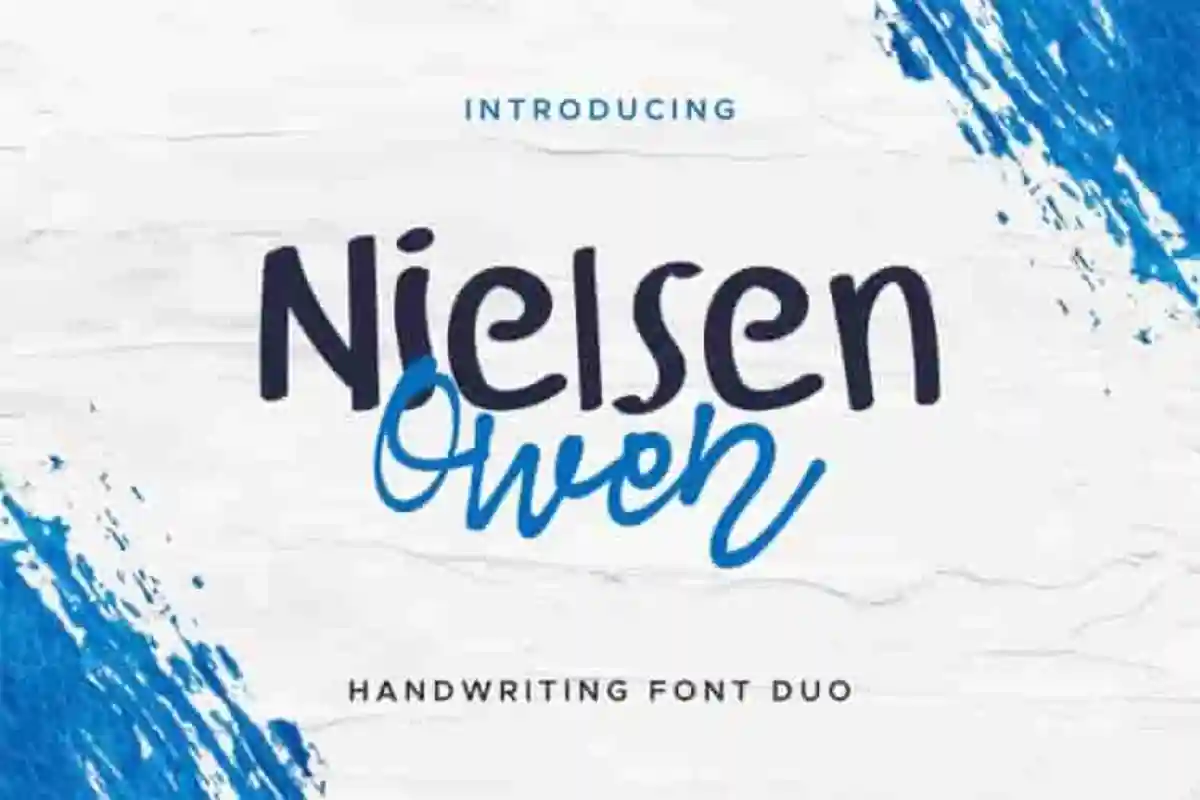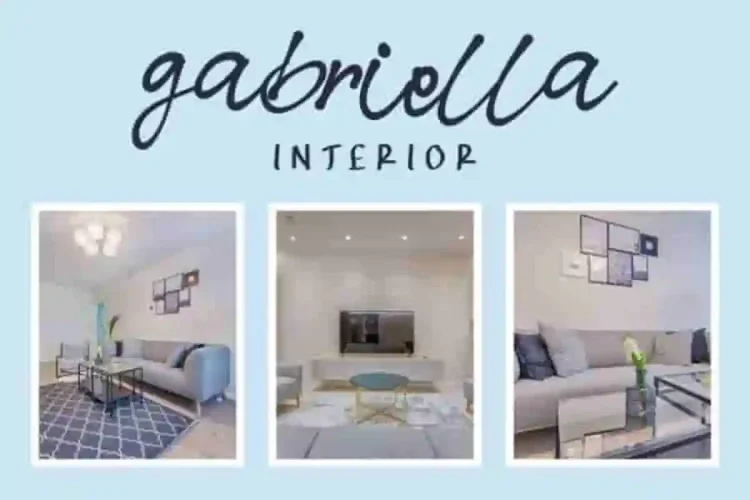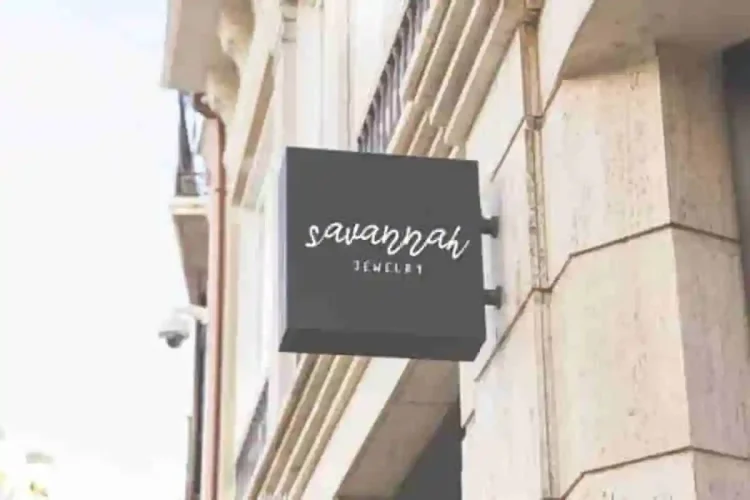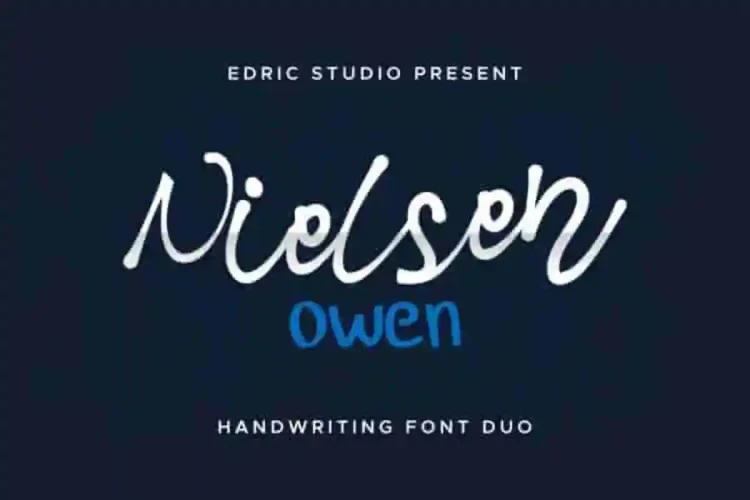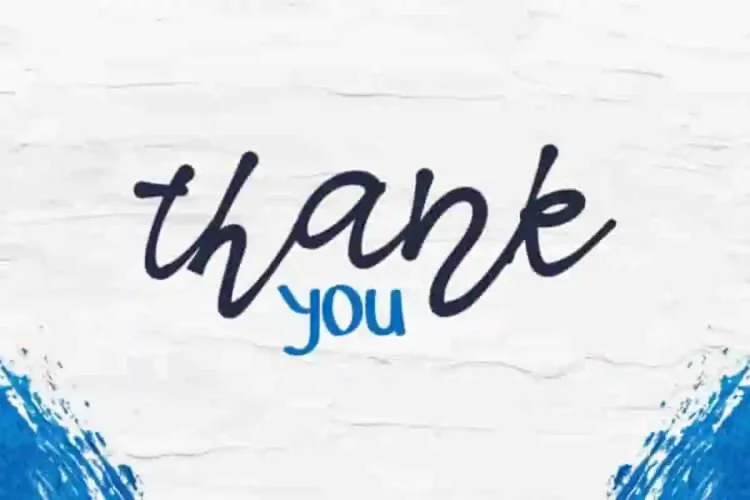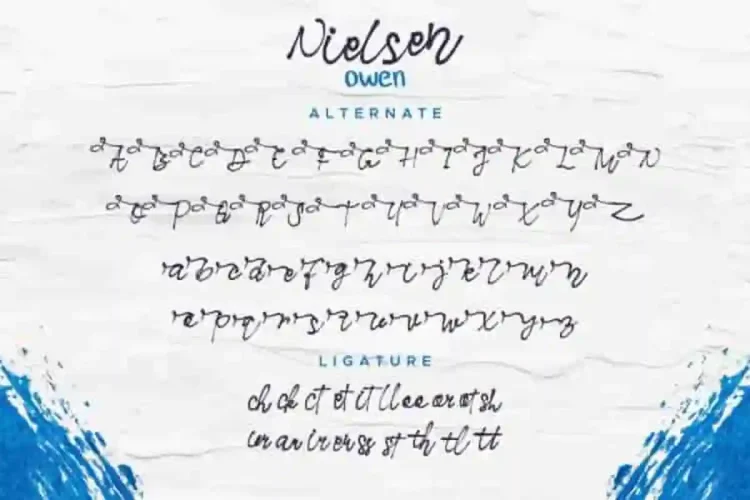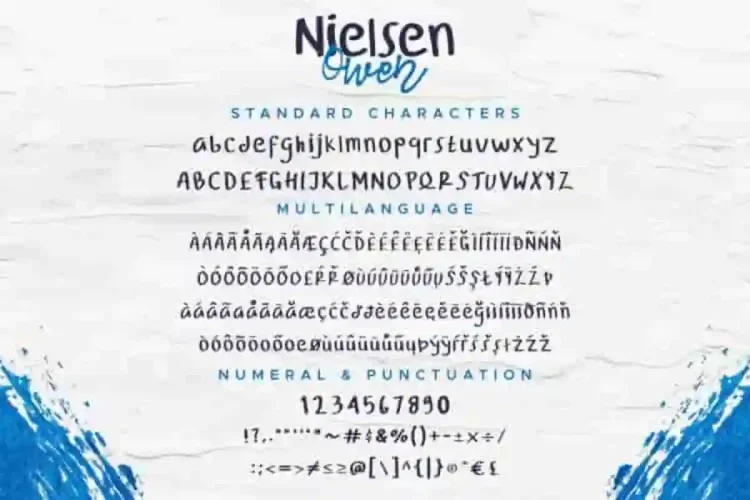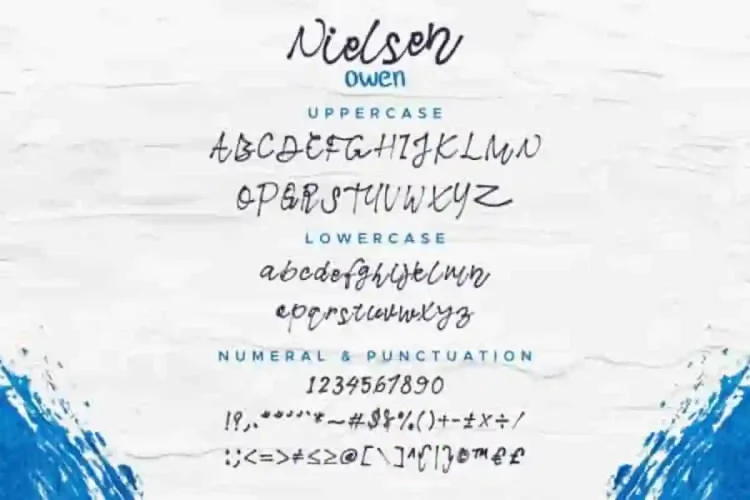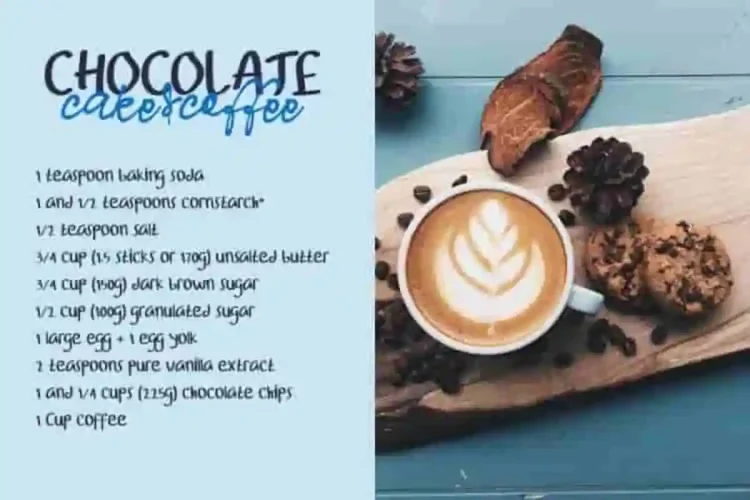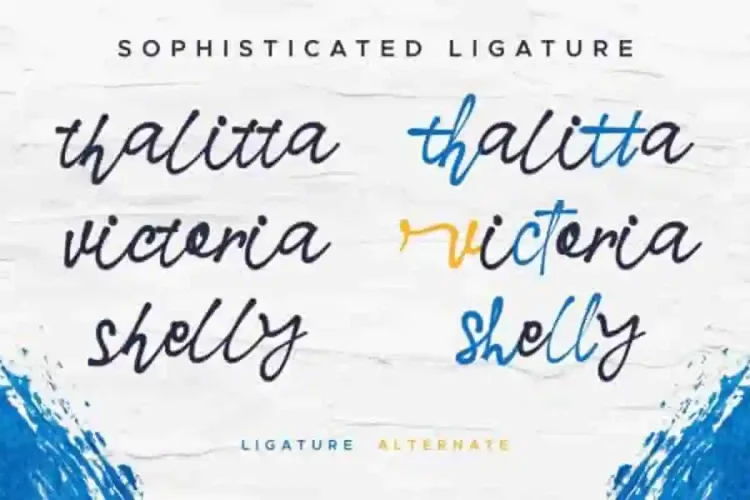
Nielsen Owen Calligraphy Font Duo
This is a script font duo, handcrafted from our Studio here in, Indonesia. The artists/designers of this beautiful tyeface is Yasri, Ali and Suci.
Nielsen Owen Calligraphy Font Duo is an exclusive display typeface with unique inky brush style. This font has a stunning characters set, perfectly managed with well spaced and kerning. The theme style of this font will horror, vintage, misterious, masculine, classic, and strong dry hand brush style. This is the one and only for its kind. :D
Nielsen Owen Calligraphy Font Duo will be great for many projects including : branding, logo, stationery, business card, signage, flyer, brochure etc. Almost all industries will be match for this typeface: events, promotion, architect, painting, florist, gardening, makeup artist, travel, game, musician etc.